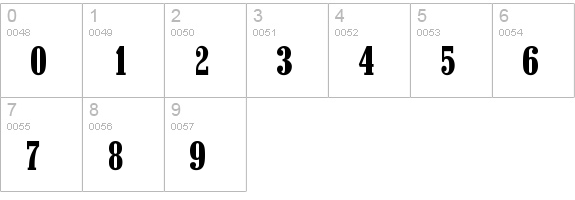
Colonel-Bold is a strong, high-contrast variant in the Colonel typeface family \xE2\x80\x94 well suited to headlines, attention-grabbing titles, and strong calls-to-action.
Colonel-Bold font is a modern and sleek typeface that exudes confidence and sophistication. Its bold and assertive design makes it the perfect choice for headlines, logos, and branding materials that need to make a bold statement. The sharp lines and clean curves of Colonel-Bold font give it a professional and polished look that is sure to captivate any audience. One of the best things about Colonel-Bold font is that it is completely free to download at FontsMarket.com. This means that you can easily access this stylish and versatile font without breaking the bank. Whether you are a designer looking to add a touch of boldness to your projects or a business owner seeking a font that will make your brand stand out, Colonel-Bold font is the perfect choice. Download it today and elevate your designs to the next level with this exceptional typeface.